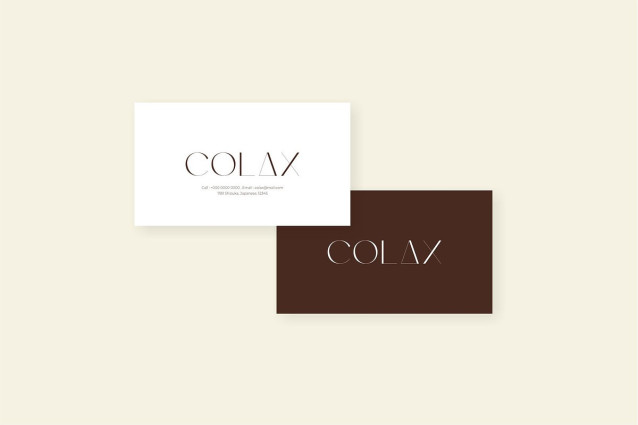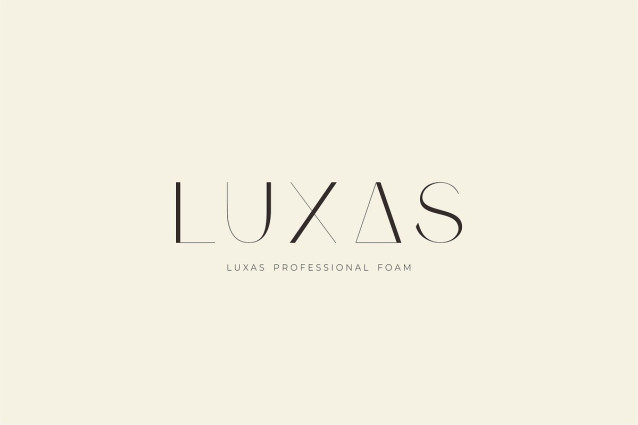
Consa Font
Consa Font is a minimalist sans serif font that gives an impressive look. With its modern design and ligature features, this font is a popular choice in the market. We always keep this font elegant, classy and stylish. Consa font is perfect for cosmetics, beauty, branding, logos, lettermarks, magazines, designs, books, publications, branding, brand names, business cards, social media, luxury design, journalism, branding, beauty and other projects. Consa font is here to enhance the quality of your designs.